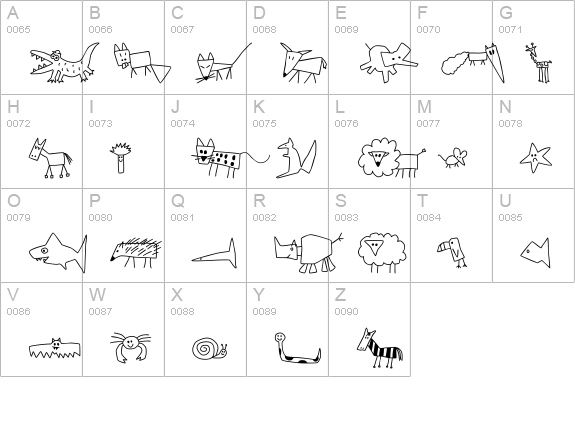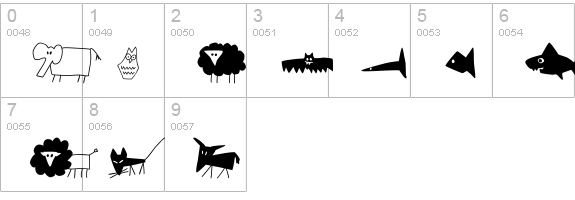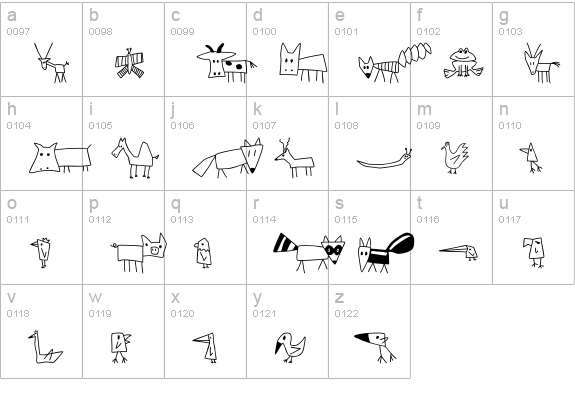
Childs Play Animals font is a whimsical and playful typeface perfect for adding a touch of fun to your design projects. This font features adorable animal illustrations that will bring a smile to anyone's face. Whether you're creating invitations, posters, or children's books, Childs Play Animals font will help you convey a sense of joy and innocence. Best of all, Childs Play Animals font is completely free to download at FontsMarket.com! So go ahead, add a touch of charm to your designs with this delightful and charming font.